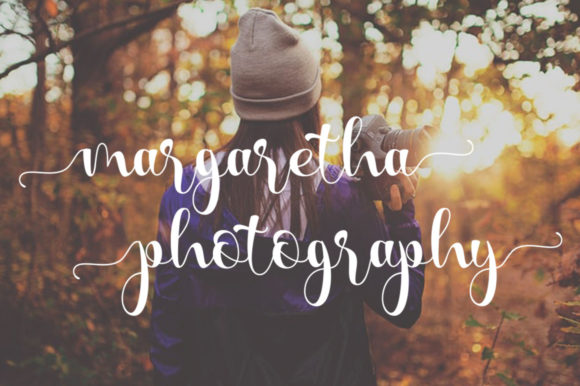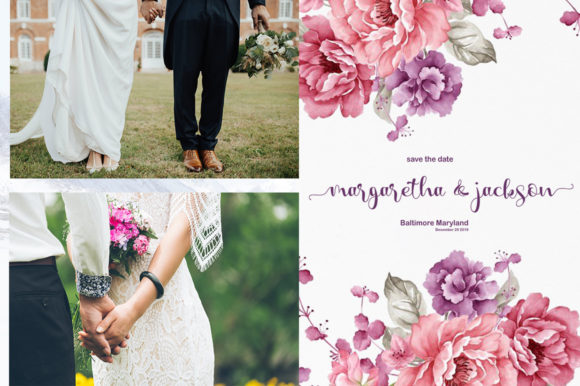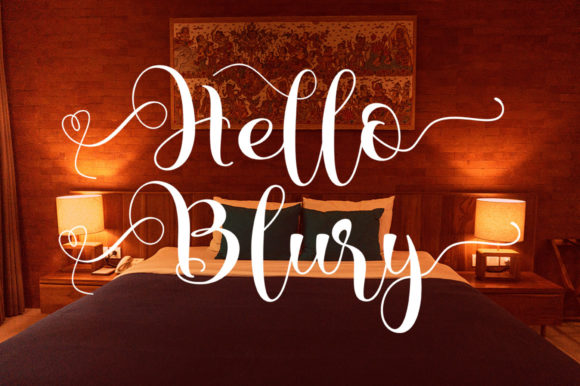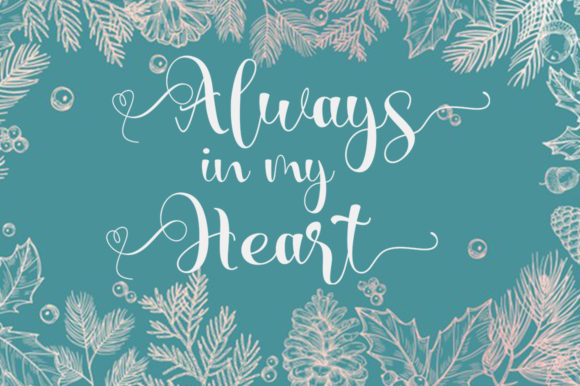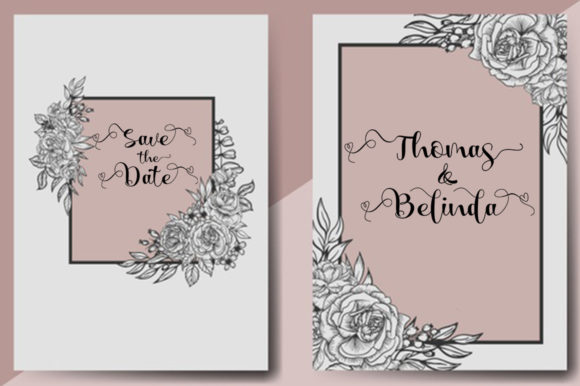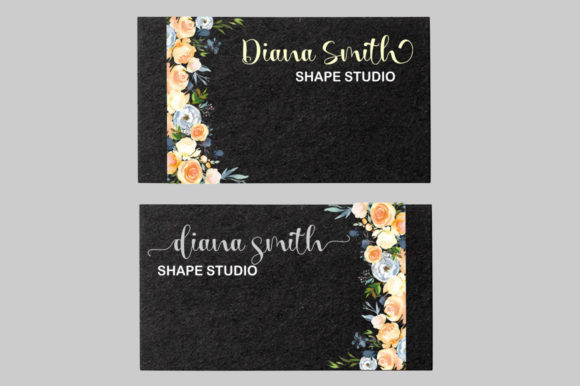
Caitlin Script Font: Elevate Your Designs with Elegance and Delicacy
Are you a designer or crafter looking for a font that exudes elegance and sophistication? Look no further than the Caitlin Script Font. This beautiful, handwritten font is perfect for adding a touch of whimsy and refinement to your projects. In this article, we’ll dive into the features and benefits of Caitlin Script, and explore how it can elevate your designs to the next level.
A Beautifully Crafted Font
Caitlin Script is an elegant and dainty handwritten font that features sweet and delicate swashes. The font’s design is characterized by its flowing lines, intricate details, and charming personality. Each glyph is carefully crafted to create a sense of movement and fluidity, making it perfect for designs that require a touch of elegance and sophistication.
One of the standout features of Caitlin Script is its PUA (Private Use Area) encoding. This means that you can access all glyphs and swashes with ease, giving you complete creative control over your designs. With PUA encoding, you can effortlessly navigate the font’s extensive character set, including ligatures, alternates, and swashes, to create unique and eye-catching designs.
Caitlin Script is a versatile font that’s perfect for a wide range of design applications. Whether you’re a graphic designer, digital artist, or crafter, this font is sure to become a staple in your collection. Use it to create:
- Elegant stationery and greeting cards
- Beautiful branding and packaging designs
- Whimsical digital art and illustrations
- Delicate craft projects, such as papercraft and sewing
Why Choose Caitlin Script?
So why choose Caitlin Script over other fonts? Here are just a few reasons:
- Unique and eye-catching design: Caitlin Script’s elegant and dainty design is sure to turn heads and set your designs apart from the crowd.
- Easy to use: With PUA encoding, accessing glyphs and swashes is a breeze, making it easy to get creative with your designs.
- Versatile: Caitlin Script is perfect for a wide range of design applications, from digital art to craft projects.
- High-quality: This font is designed with high-quality and precision, ensuring that it looks great in any design.
In conclusion, Caitlin Script Font is a beautiful and elegant handwritten font that’s perfect for designers and crafters looking to add a touch of sophistication to their projects. With its PUA encoding and extensive character set, this font offers endless creative possibilities. Whether you’re creating digital art, crafting, or designing branding and packaging, Caitlin Script is sure to become a favorite in your collection.